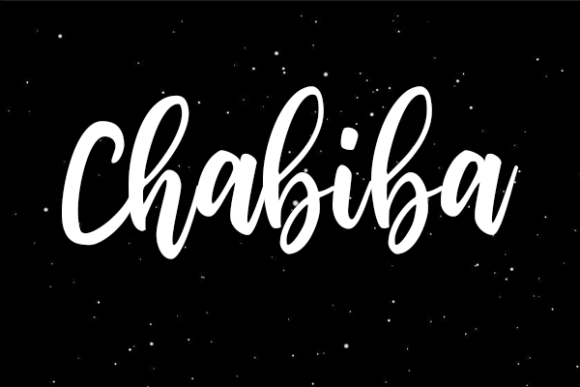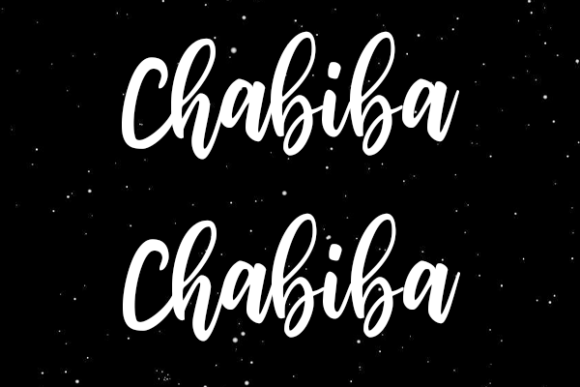
Chabiba Font
About Chabiba Font
**Chabiba Font: Where Eye-Catching Charm Meets Sweet Elegance**
Introducing “Chabiba,” an eye-catching and sweet handwritten font that effortlessly blends charm with sweet elegance. With its distinctive character, Chabiba emerges as the ideal choice for logos, branding, and quotes. Each letter in this font carries a unique and beautiful touch, breathing life into your design with a captivating flair.
At the core of “Chabiba” is an eye-catching charm that draws attention effortlessly. The font’s handwritten characters exude a sweet elegance, making it an ideal option for designs that aim to create an impact. “Chabiba” transcends being merely a typeface; it transforms your text into a visual masterpiece, infusing it with an irresistible and charming allure.
The unique beauty of “Chabiba” opens doors to creative possibilities. Picture it gracing logos with its eye-catching appeal, adding a sweet touch to branding, or becoming the preferred font for quotes that demand a delicate and elegant expression. This font becomes a versatile companion, seamlessly aligning with the essence of your creative vision.
The adaptability of “Chabiba” makes it suitable for various applications across different mediums. Whether you’re working on digital designs, print materials, or crafting standout merchandise, this font becomes the dynamic brushstroke that elevates your work to new heights.
In conclusion, “Chabiba” is more than just a font; it’s an invitation to embrace eye-catching charm and sweet elegance. Embrace it, and witness your designs come alive with an irresistibly captivating flair. With “Chabiba,” every letter becomes a charming brushstroke, leaving an indelible mark of sweetness on your design journey.